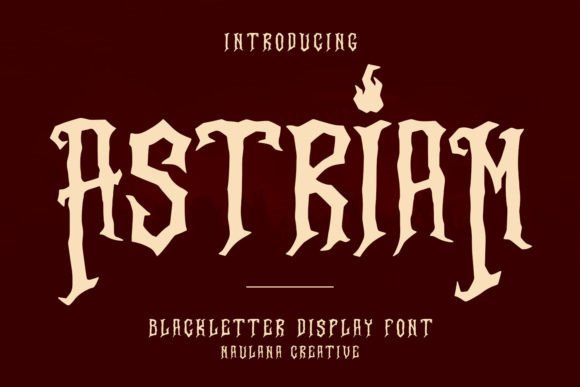
Unleash the Boldness: Astriam Blackletter Font – Your Gateway to Captivating Designs
In a world clamoring for distinction, your designs deserve to stand apart. Introducing Astriam, the striking blackletter font poised to transform your creative vision into a masterpiece. Crafted with unwavering boldness and an air of sophistication, Astriam beckons you to embark on a typographic odyssey like no other.
With its thick strokes and commanding presence, Astriam is the perfect font for those seeking to make an indelible mark. Its sharp edges and intricate details exude an aura of strength and confidence, ensuring your words carry weight and impact. Be it logos, posters, branding, or any project demanding attention, Astriam rises to the occasion, leaving an imprint that lingers in the minds of your audience.
But Astriam's allure extends beyond its visual prowess. Its versatility knows no bounds, making it an ideal choice for a myriad of design endeavors. Whether you're weaving tales in book covers, crafting eye-catching headlines, or adding a touch of elegance to invitations, Astriam adapts seamlessly, enhancing your creations with its timeless charm.
The designers at Maulana Creative have meticulously crafted each letterform, ensuring that Astriam not only captivates but also maintains readability, even in the tiniest of spaces. Its PUA encoding grants you effortless access to a treasure trove of glyphs and swashes, empowering you to unleash your creativity and elevate your designs to new heights.
Astriam is more than just a font; it's an artistic statement, a testament to the power of typography. Its bold presence commands attention, its versatility adapts to your every need, and its ease of use empowers you to weave typographic magic with effortless grace. Embrace Astriam, and witness the transformation of your designs into captivating works of art.